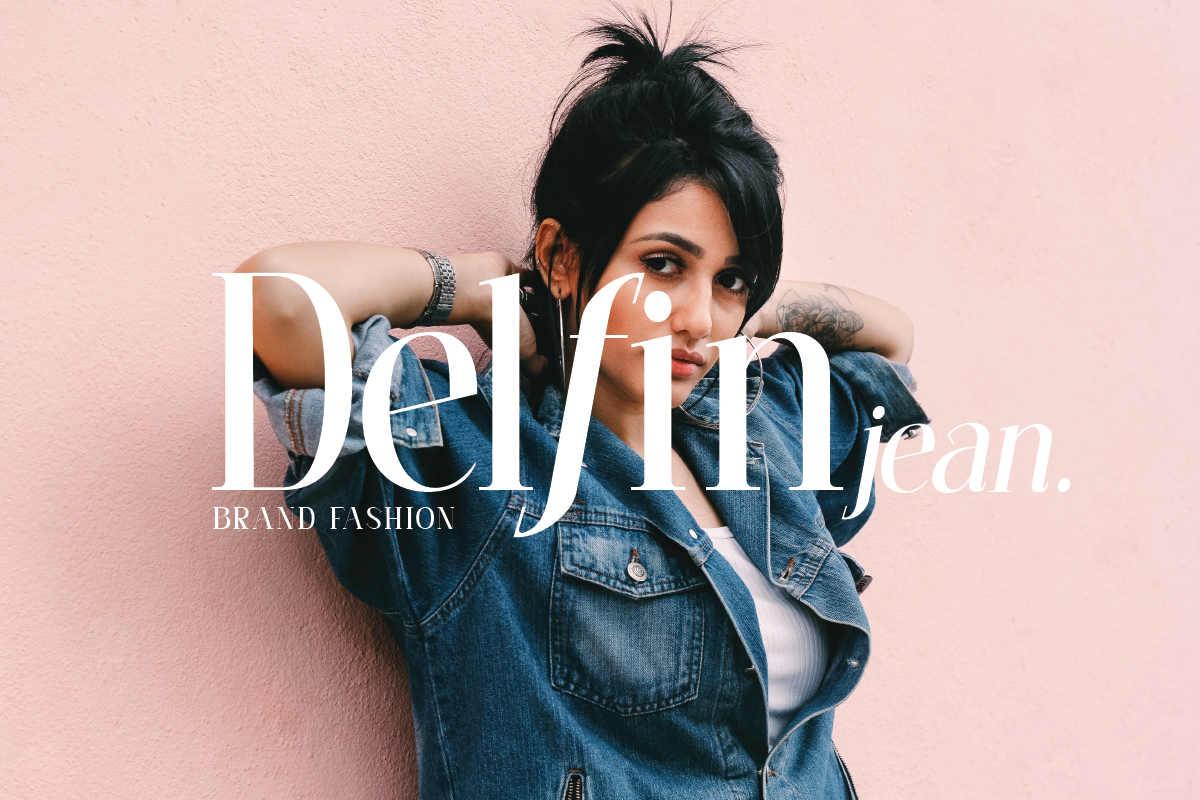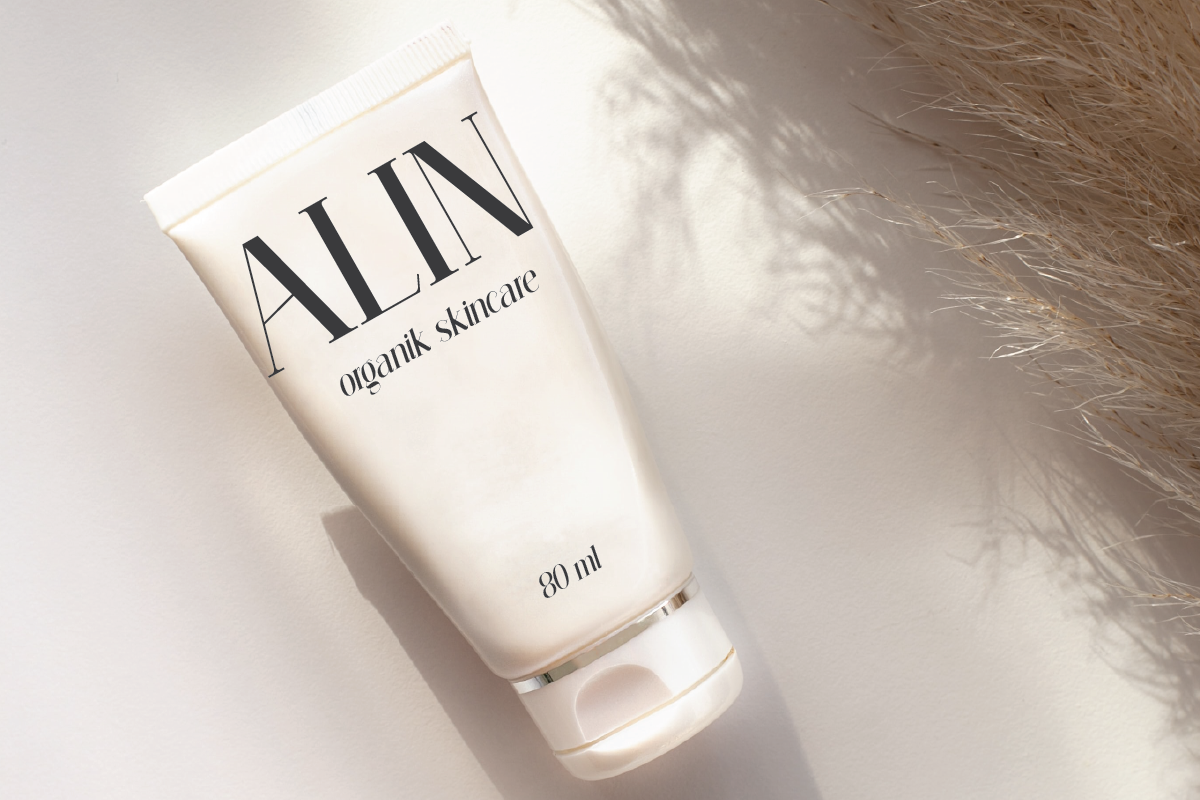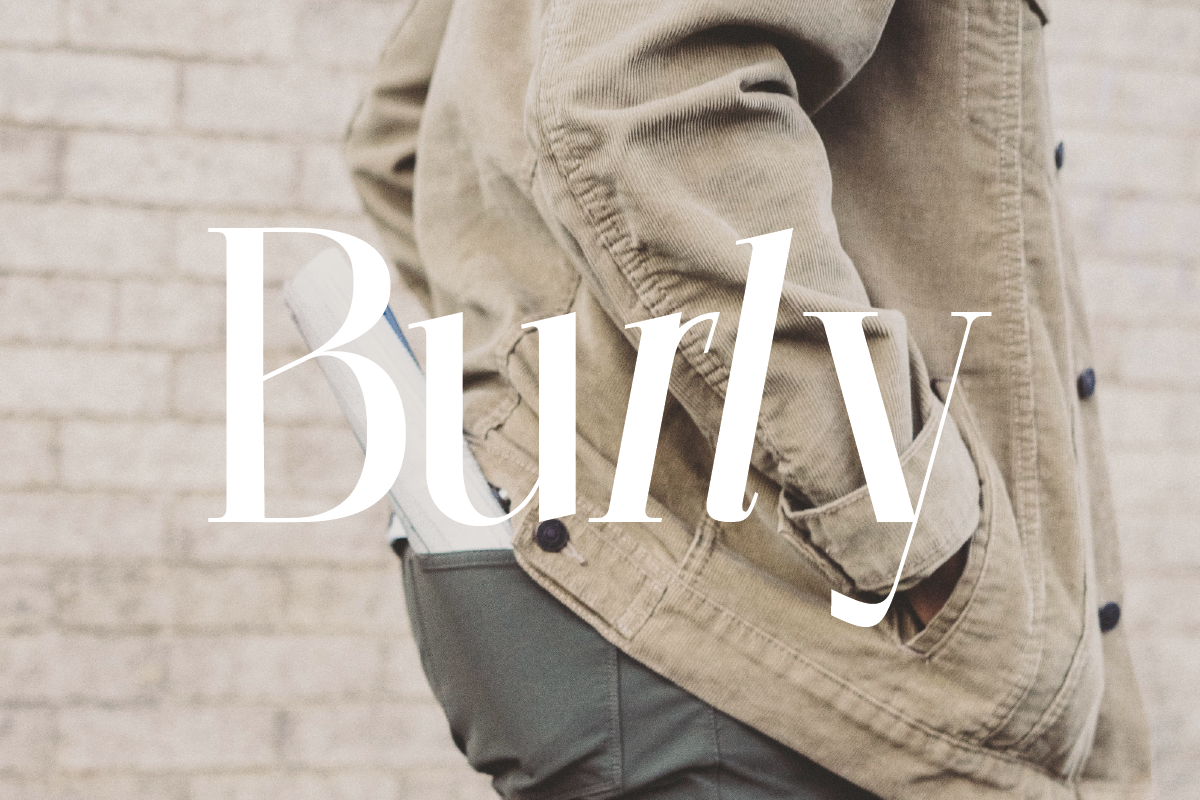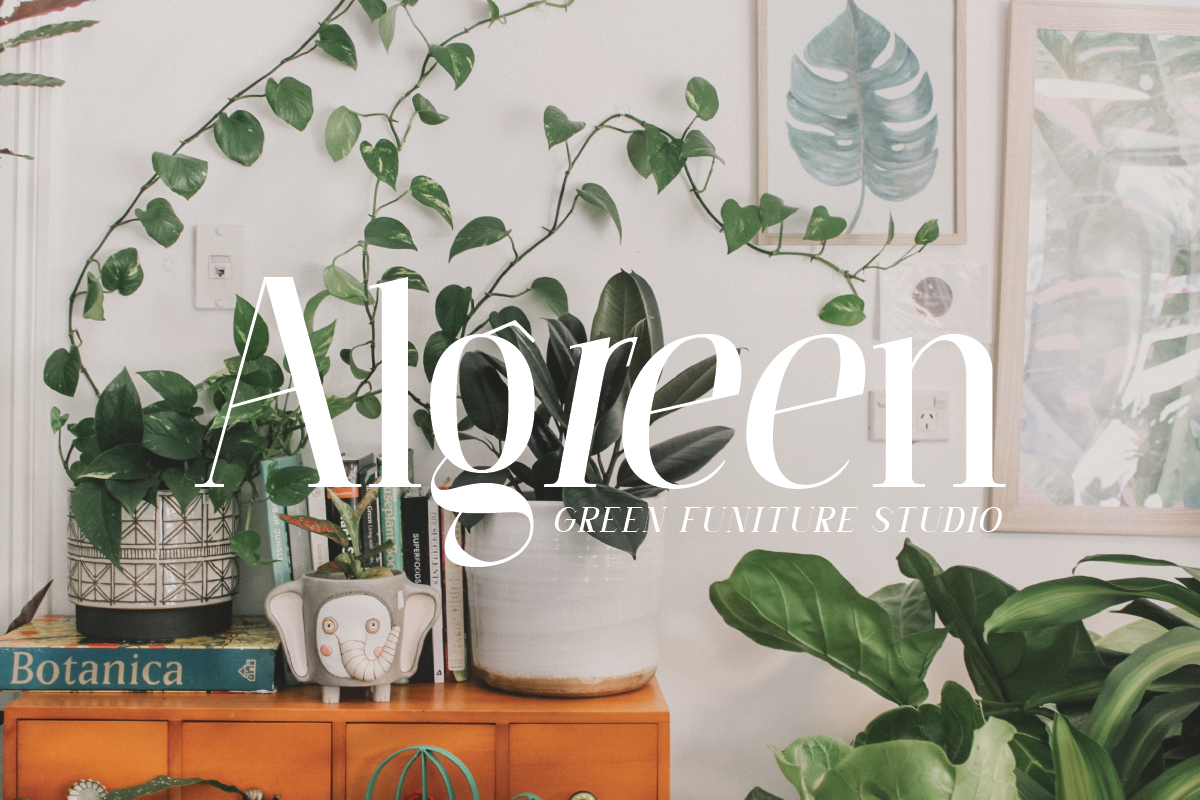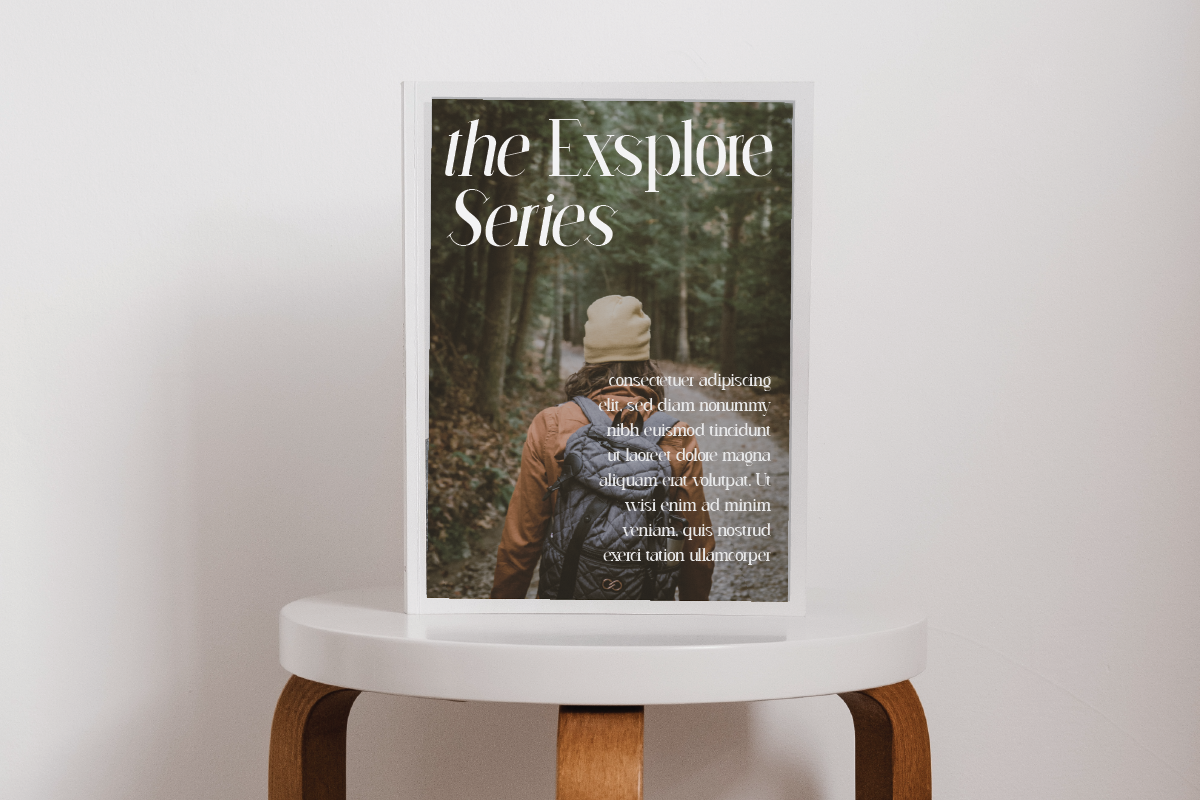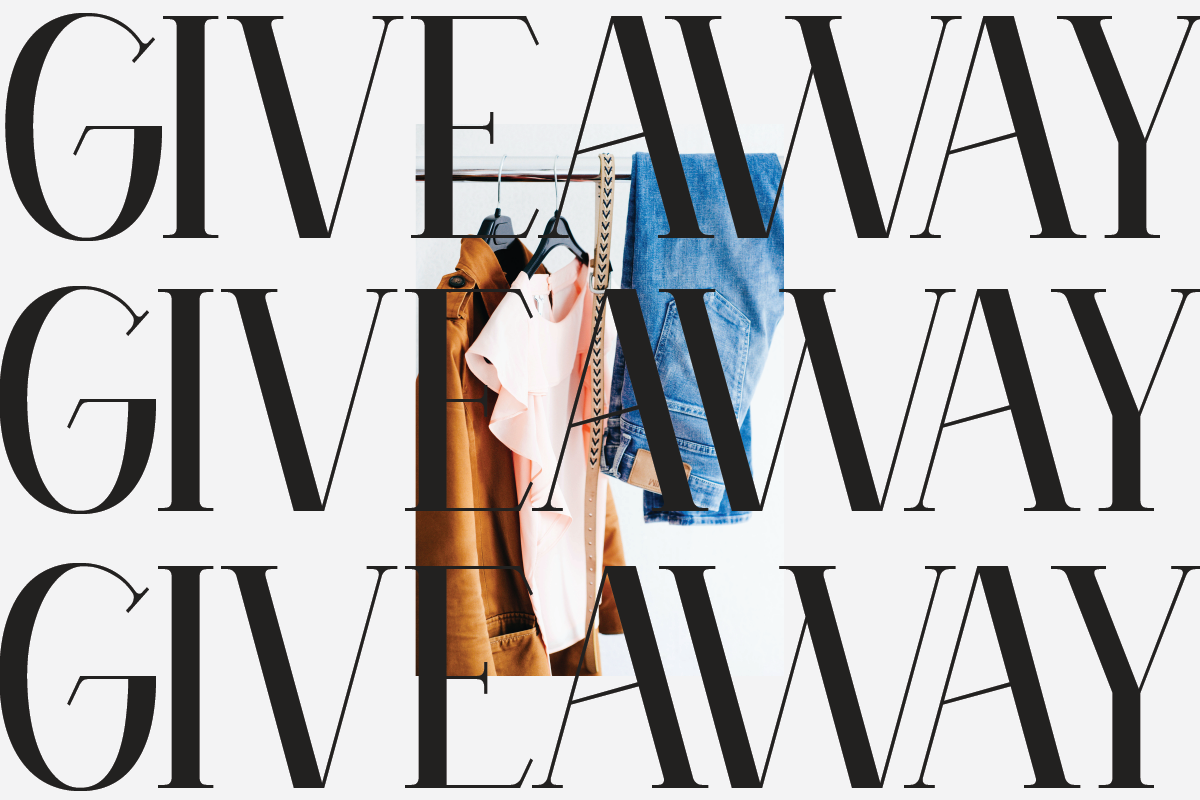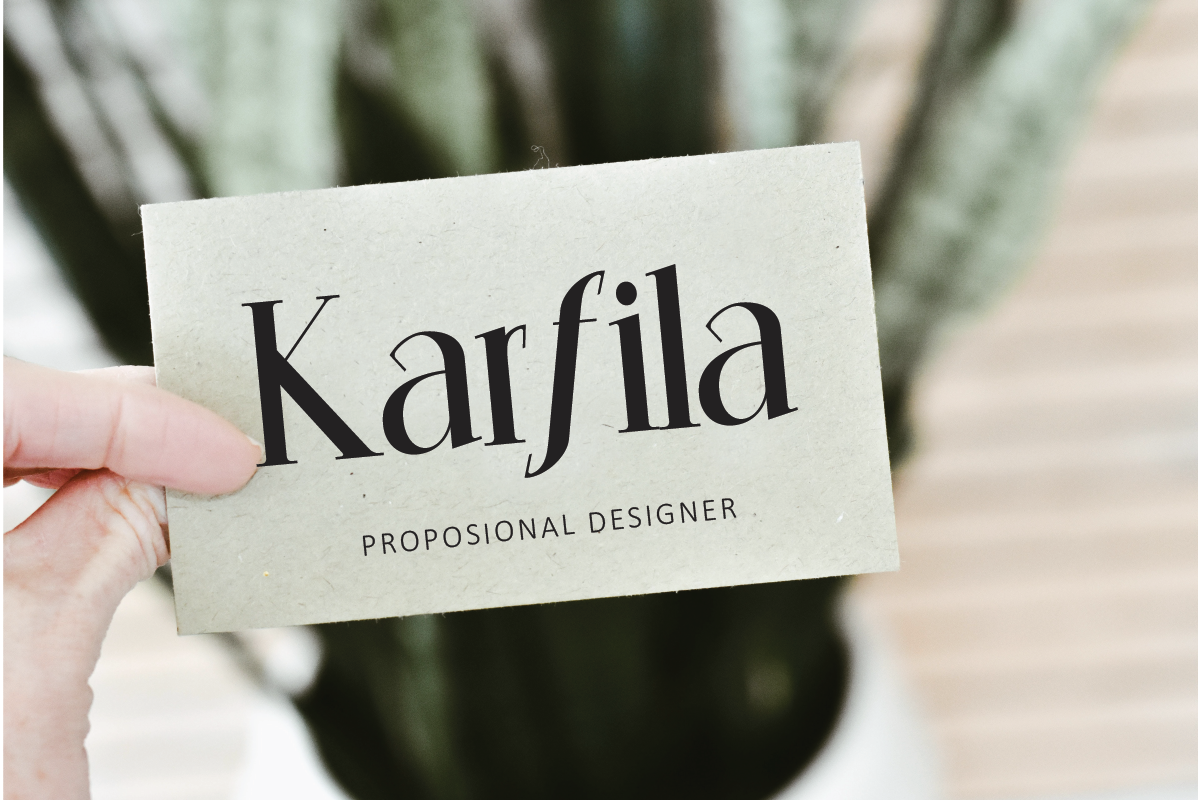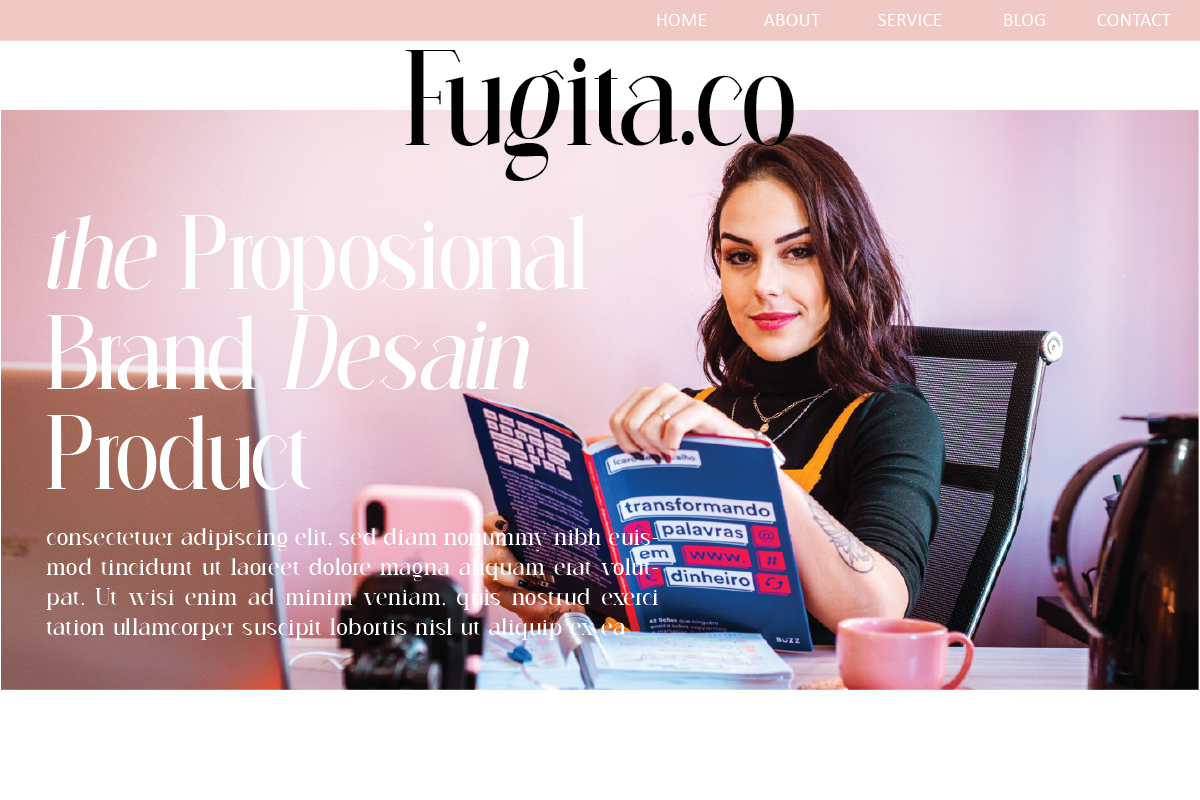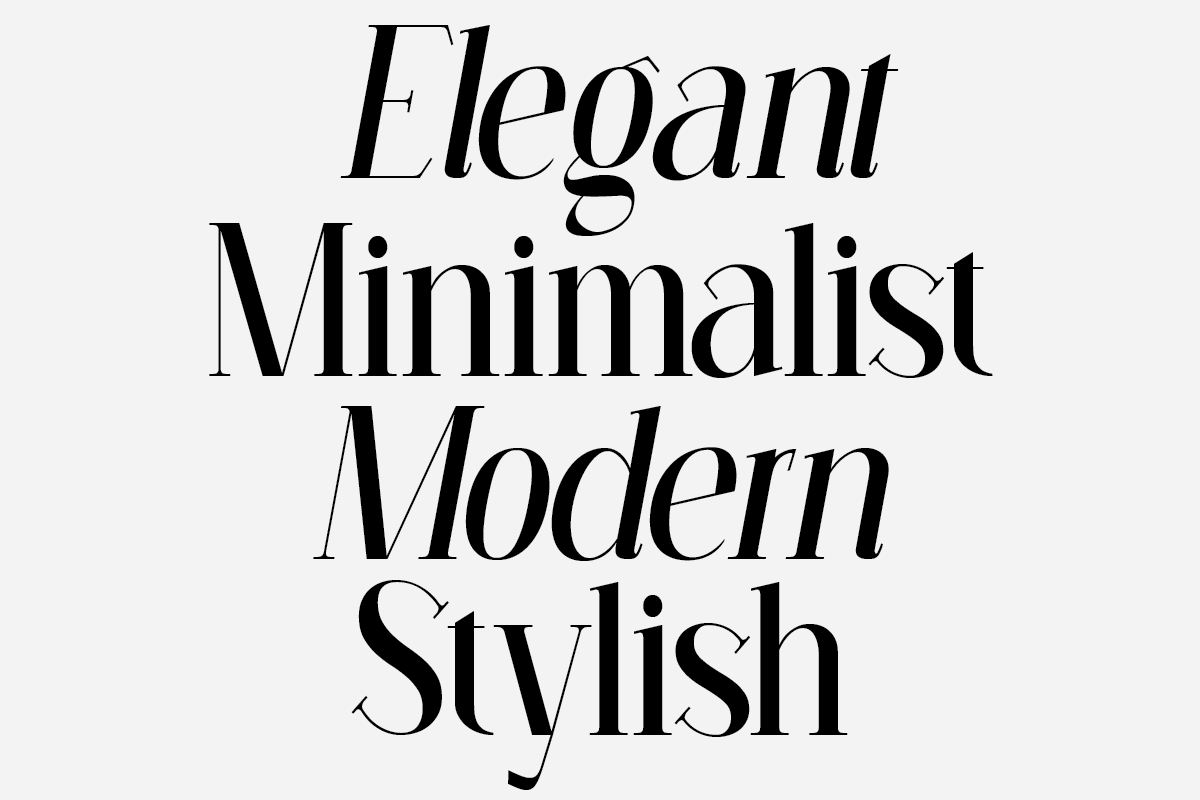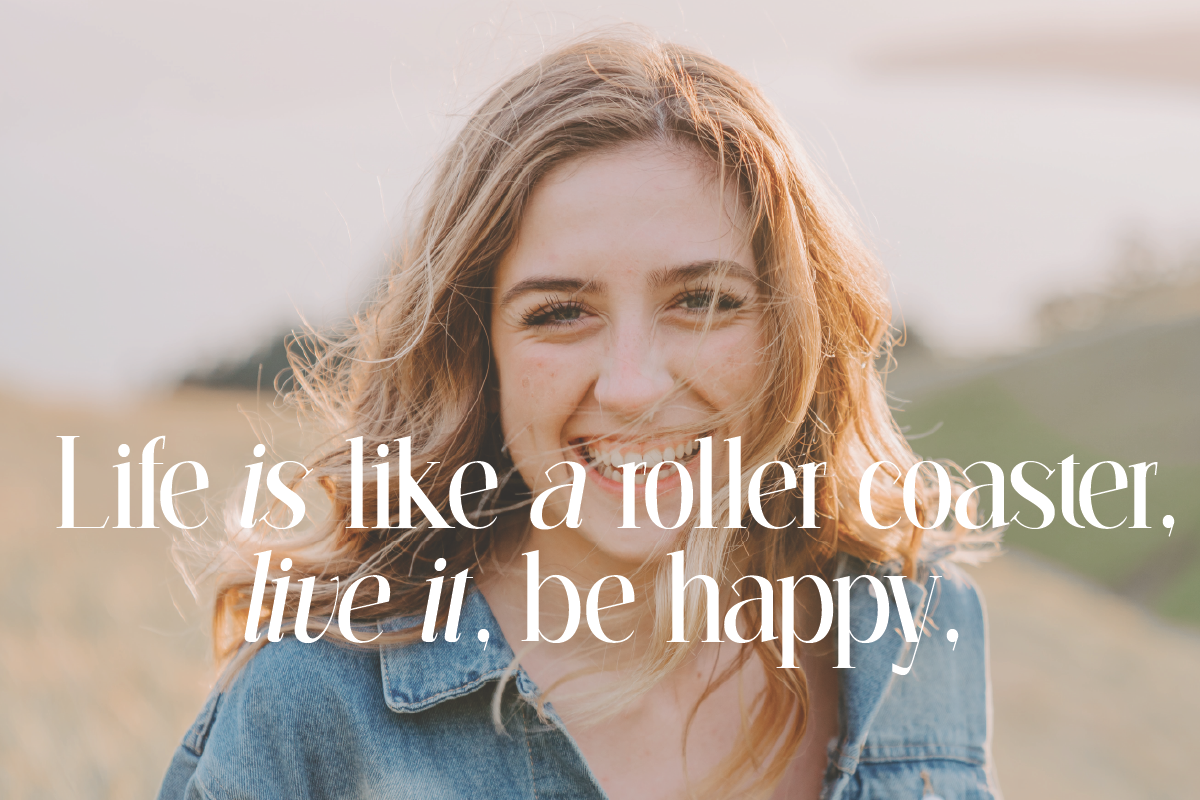
Perfect Moment
Perfect Moment Modern serif Font typeface with beautiful alternate, special glyphs, ornament and multilingual support. It's a very versatile font that works great in large and small sizes. Perfect for editorial projects, Logo design, Clothing Branding, product packaging, magazine headers, or simply as a stylish text overlay to any background image.